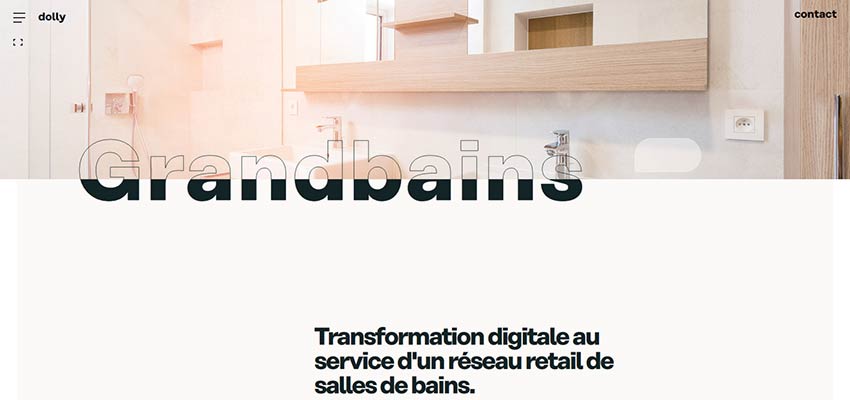
Contrast in Type: Mixing Solid and Hollow Fonts
It is a common practice to mix and match typefaces in order to find the perfect pair for a website. As a rule, designers choose one font for the header and another one for body text. The first one is fancy and bold in order to make the titles attention-grabbing. Whereas, the second one is often simple to make the text easily readable.
There are even popular options and trendsetters here. This stage of website design sits well with the creative crowd, although sometimes it requires a refreshing and renovation to keep moving forward. And most recently it has gotten a shot in the arm.
The combination of hollow and solid lettering is a brand-new trend in web design typography.
Romain Murschel
The personal portfolio of Romain Murschel is a perfect example of this little mainstream idea that tries to compete with big old players in the arena.
Here the hollow and solid styles are used to highlight the names of each project presented in the slider. This trick catches an eye with its originality and intricate beauty. And it also goes perfectly well with the ultra-modern design of the website, along with some innovative features, such as the liquid-like behavior of the canvas.
What’s more, note that the title is relatively large, but it does not overwhelm nor overpower visitors. Neither does it distract attention from the beautiful image in the background; it just sits pretty and does its job quite well.
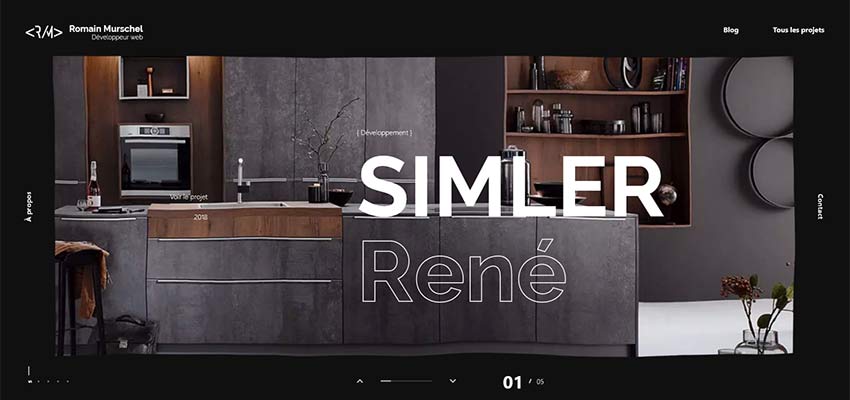
Production Portugal
Production Portugal is another excellent example. Here, the hero area is marked by a fantastic video background, and the slogan of the campaign is presented as two words. “Nothing” strikes you from the first moment, and then “Justify” joins the impact – resulting in a favorable outcome.
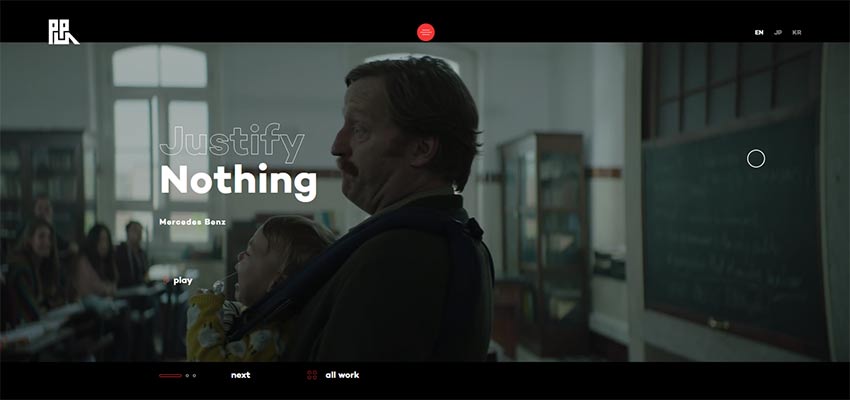
Addict Rave
Much like the previous example, Addict Rave also features a video background. To stand in contrast, the title was not only set in a large size, but also divided into two vivid parts using solid and hollow stylistic choices. “Addict” is an obvious star here, whereas “rave” is a perfect addition.
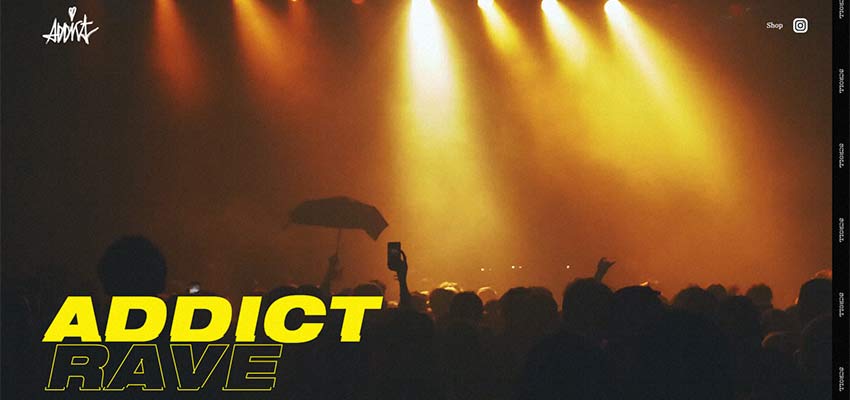
Coveo Music
The trend has a sound foundation for thriving. It has some good real-life applications. First and foremost, this combination can be used to place emphasis on the selected word – like in the case of Coveo Music.
Here we can see an intricate take on a slider. A list with names of works is first to greet us. When you hover over the title, an image shows up, and the title changes its state from solid black to hollow, signaling that it is the current selection. Neat and smart.
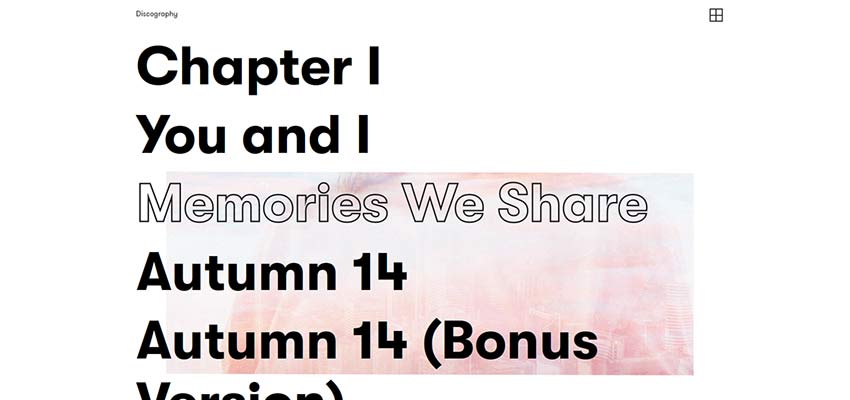
Tilt Story
As you may have guessed, the solid and hollow stylistic options used together can quickly liven up a single word. It provides a larger visual weight and slightly dims another one by making it visually lighter. However, the hollow shape still catches an eye because of its elegant and sophisticated look.
Consider Tilt Story. The team behind the project uses this trick to do just that. They highlight the name of the work and still dress the nameplate of the agency into something fancy and voguish. The first thing that you read here is “Biting back”, but still the upside down “Tilt” is the second thing that strikes an eye.
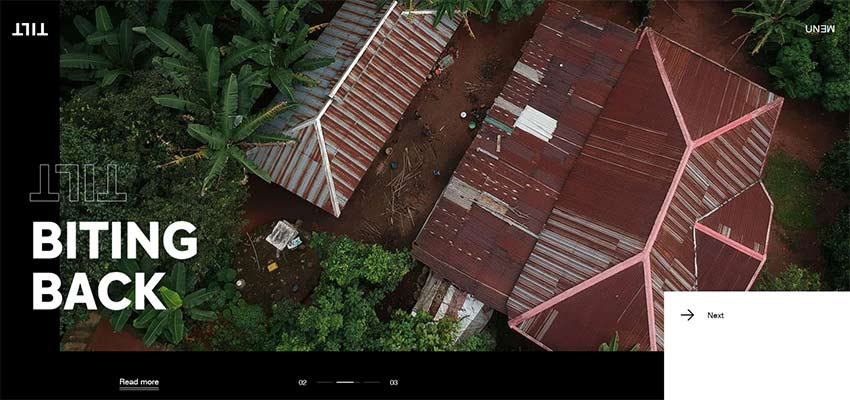
NourishEats
The second reason for this trend to thrive lies in its ability to naturally place accents and set up complementary elements without going the extra mile.
Consider NourishEats. The front page greets the audience with an asymmetrical split screen, where the left side has a priority over the right. We can see it thanks to several things. Obviously, the size of the section indicates that. What’s more, the style of the lettering also clears this up. “About Joanna” looks more solid and bold than fragile and airy “Hey”.
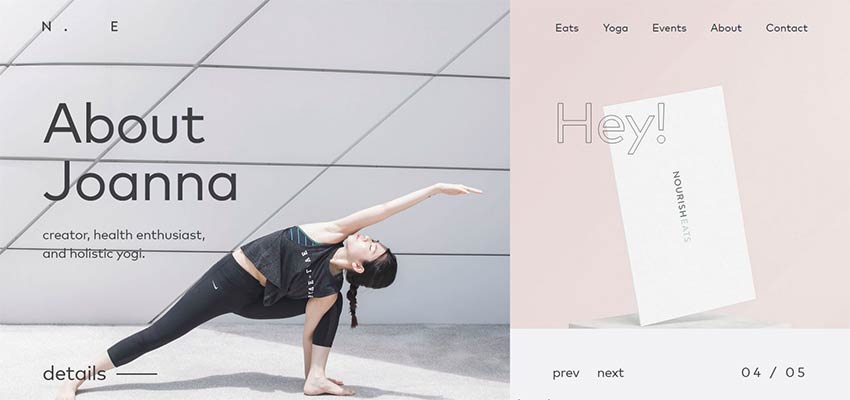
Year in Review by Green Chameleon / The State of European Tech
Year in Review by Green Chameleon and The State of European Tech employ the same tactics. Both websites feature solid lettering to display the name of the project and hollow lettering to indicate the year.
While in the first example the year is placed in the background, in the second example it is an integral part of the text block. In both cases, they look relatively prominent, serving as perfect additional elements.
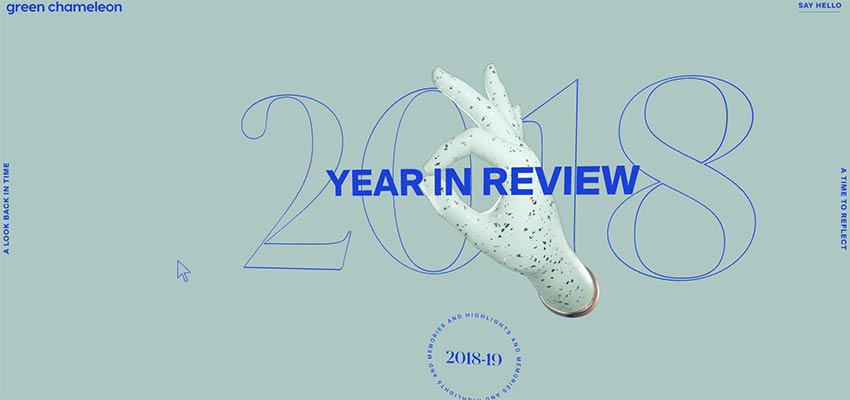
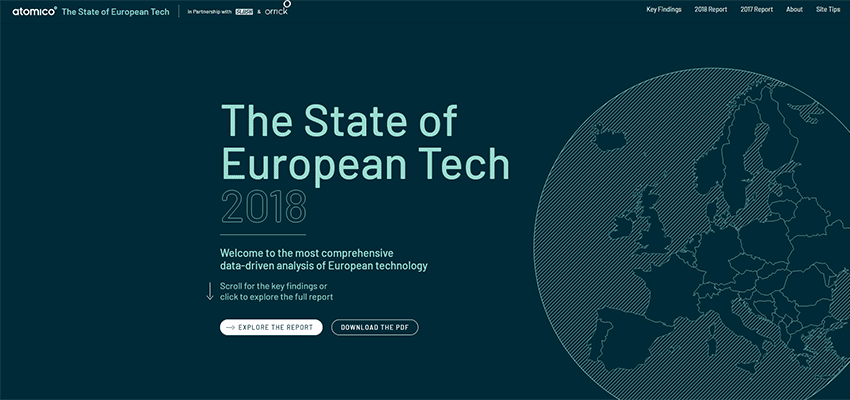
Wanted for Nothing
In the case of Wanted for Nothing, you stumble upon a solid title that mutes other items on the screen. However, thanks to the hollow appearance of the word “start”, it naturally occupies its proper place in the composition, stirring users into action.
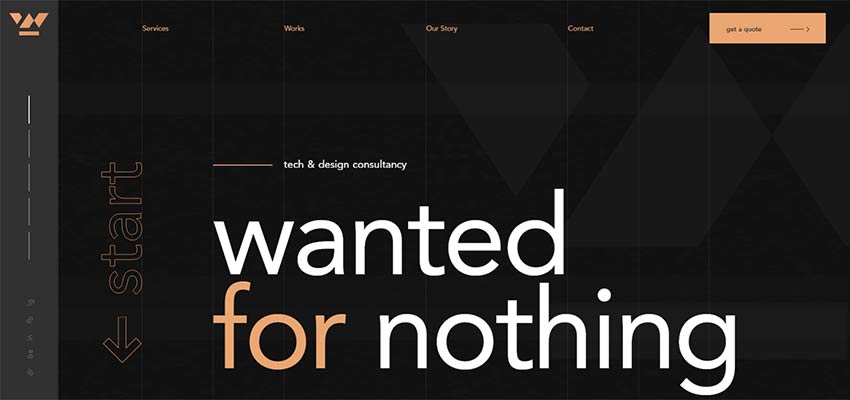
Dolly – Agency / Vincent Saisset / Betamatters
And finally, this trend is a great way to make the typography look decorative and the message speak louder. Consider Dolly – Agency, Vincent Saisset, and Betamatters.
This technique makes things interesting in an unobtrusive way and, at the same, time skillfully highlights essential details. It also has some real-life applications. So, in the right hands it can be turned into something both incredible and practical.